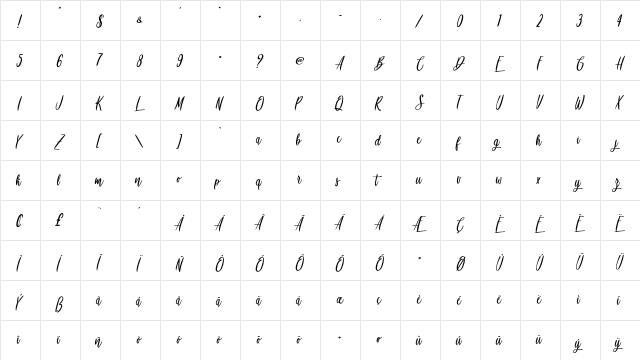
Rainbow Dreams - Personal Use Regular
| Foundry | Typhoon Type - Suthi Srisopha |
| Designer | Typhoon Type - Suthi Srisopha |
Design Context for Rainbow Dreams - Personal Use Typeface
Rainbow Dreams - Personal Use is a composed and adaptable typeface that performs quietly and consistently across a wide range of design contexts.